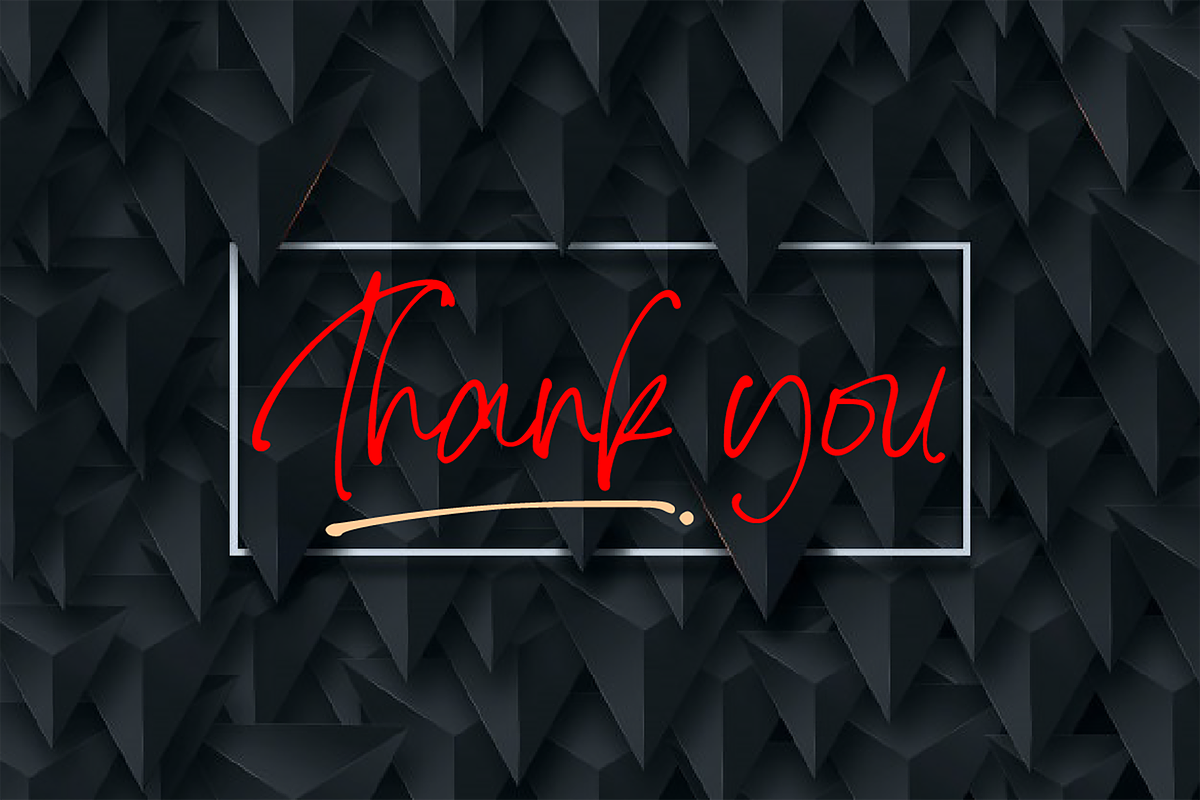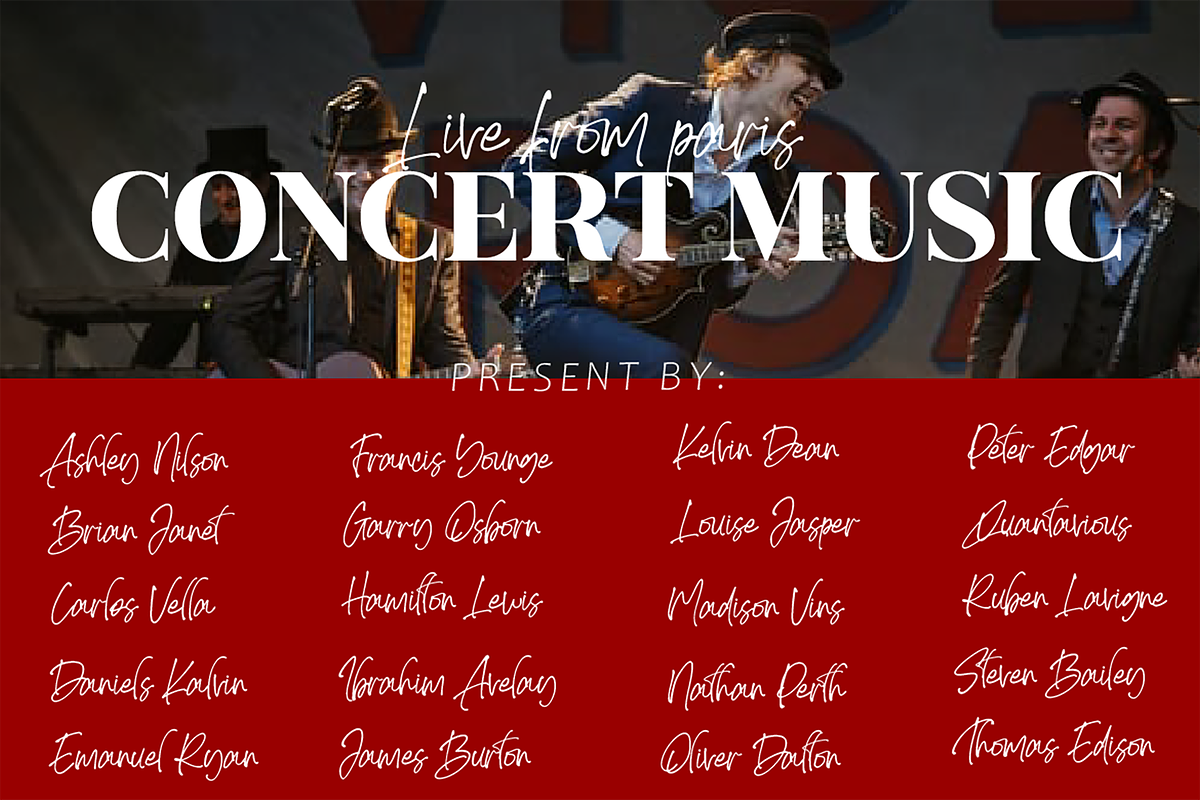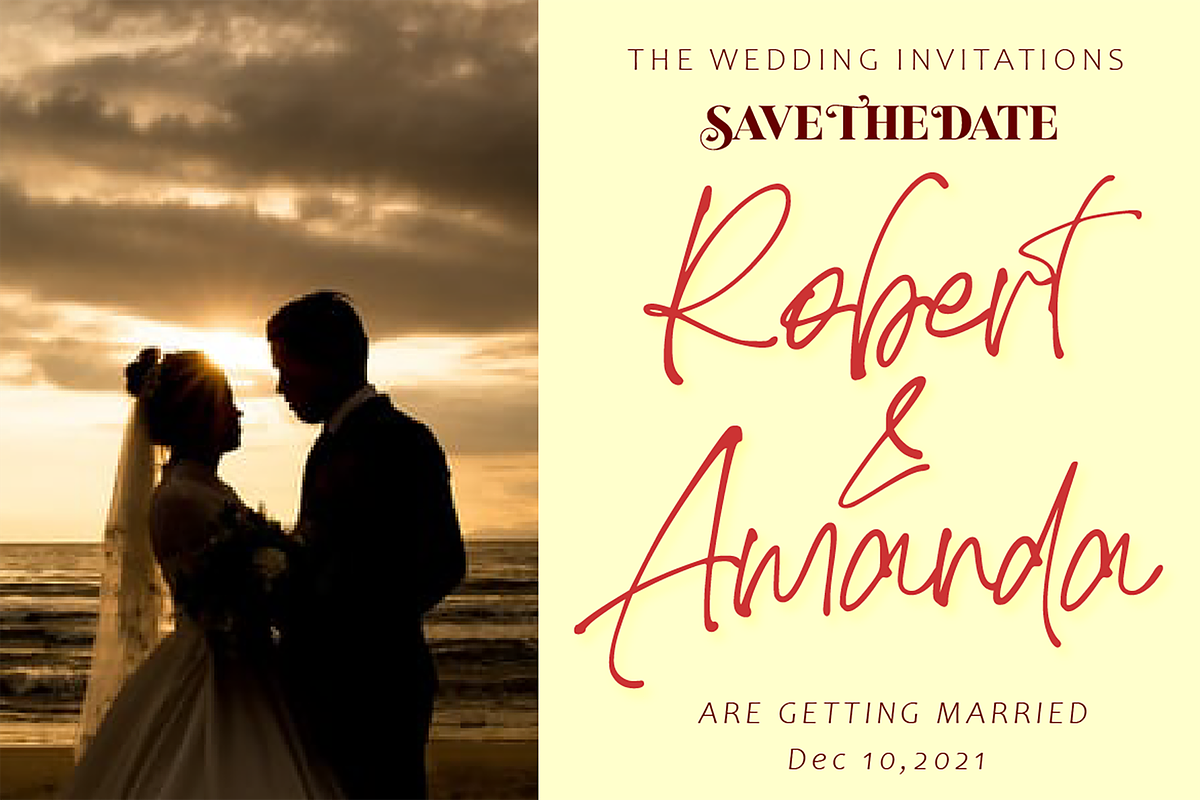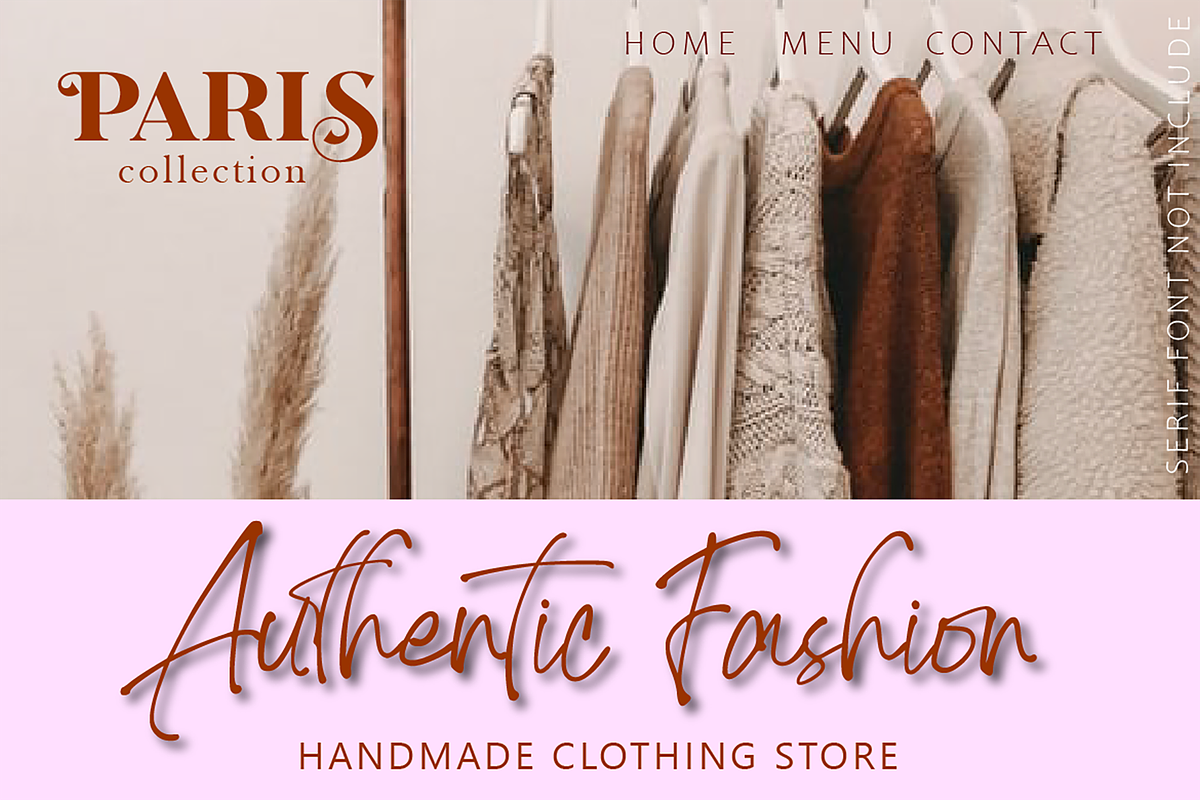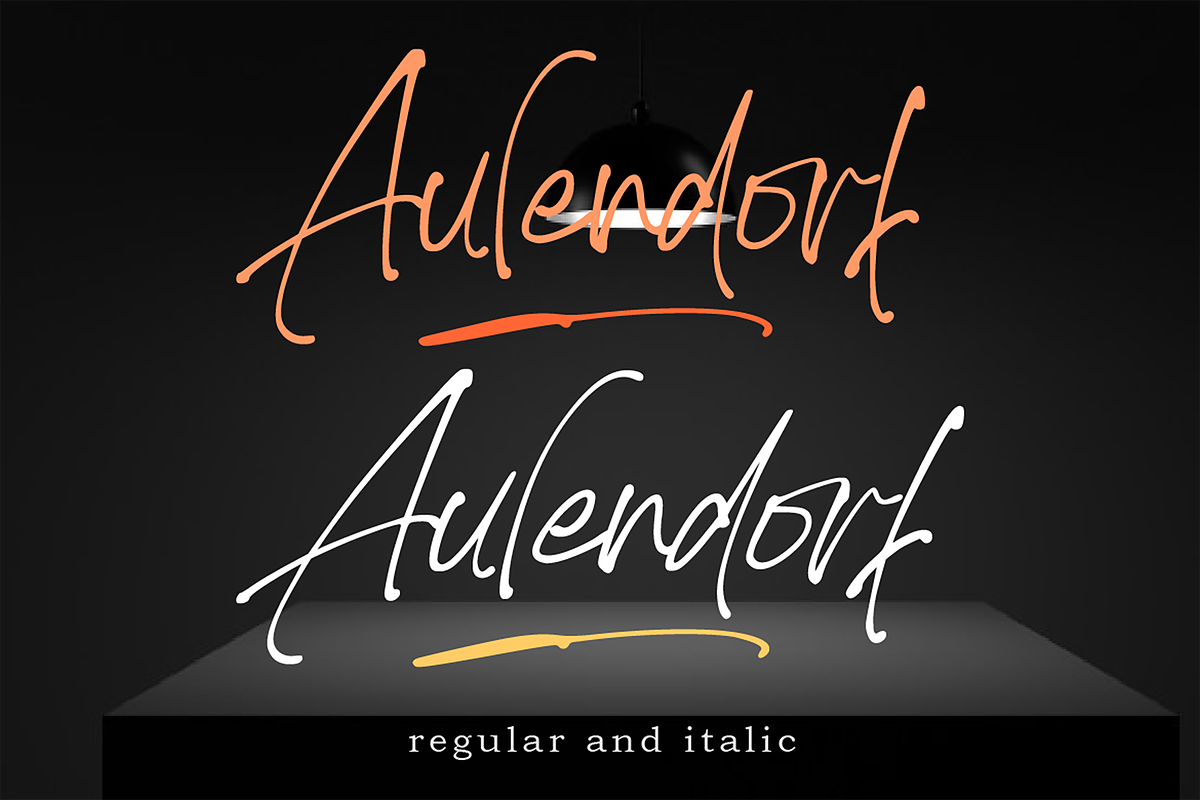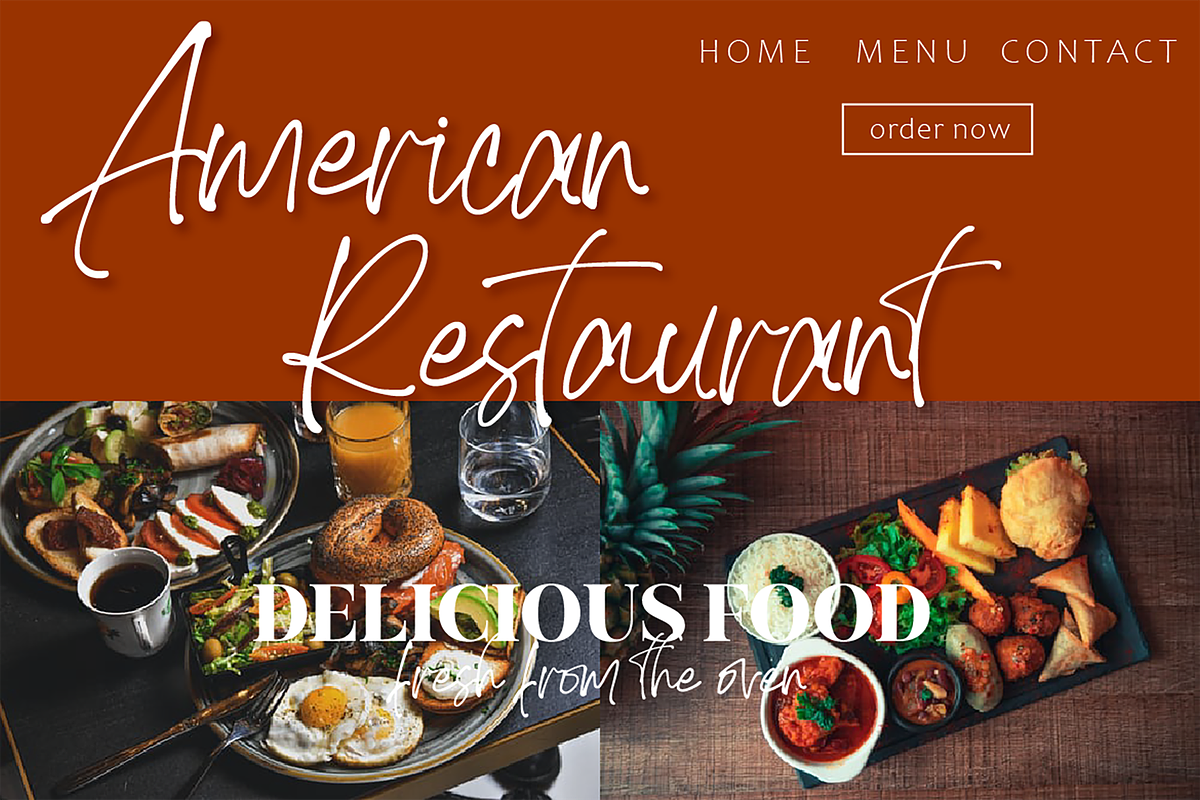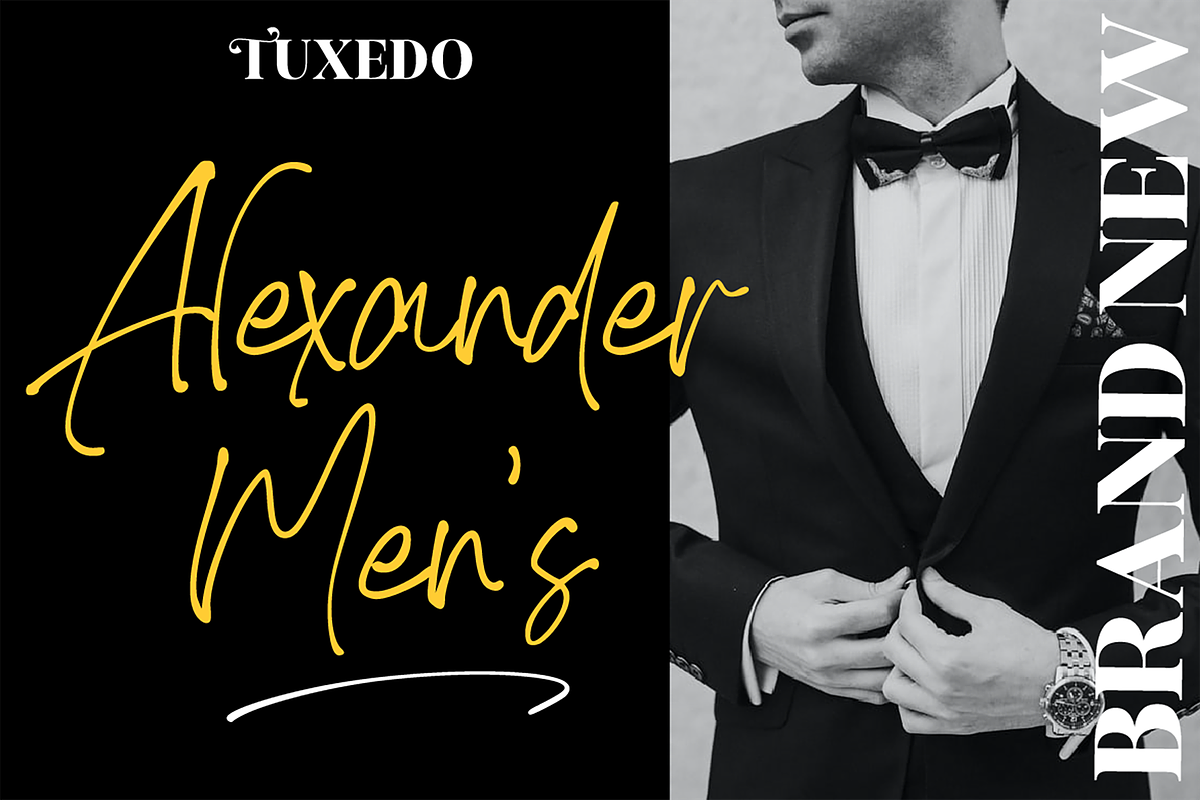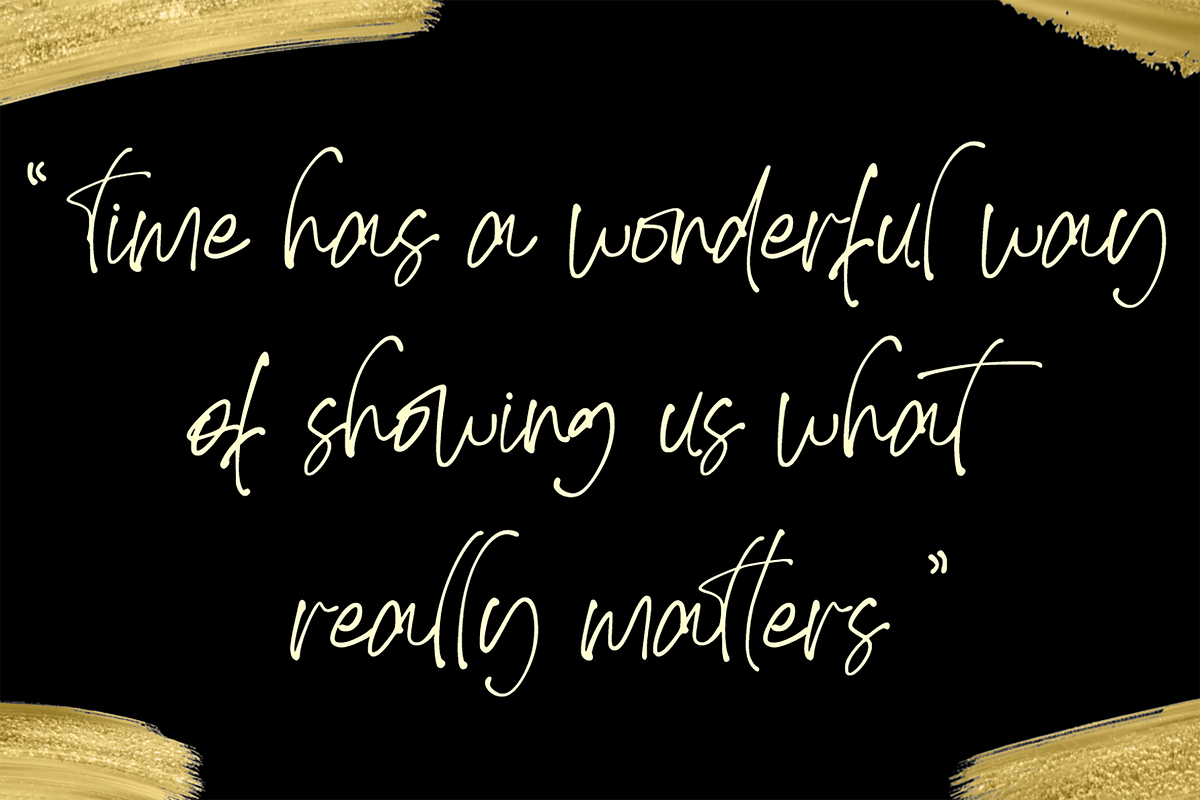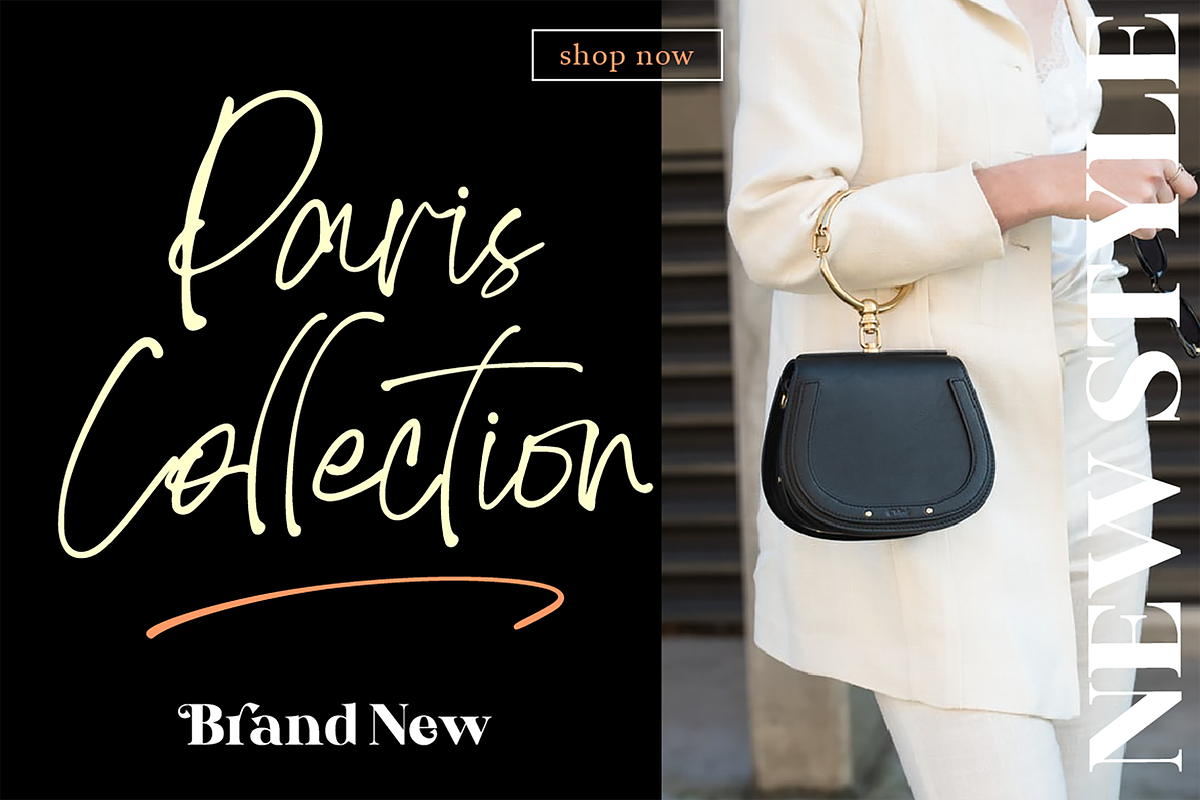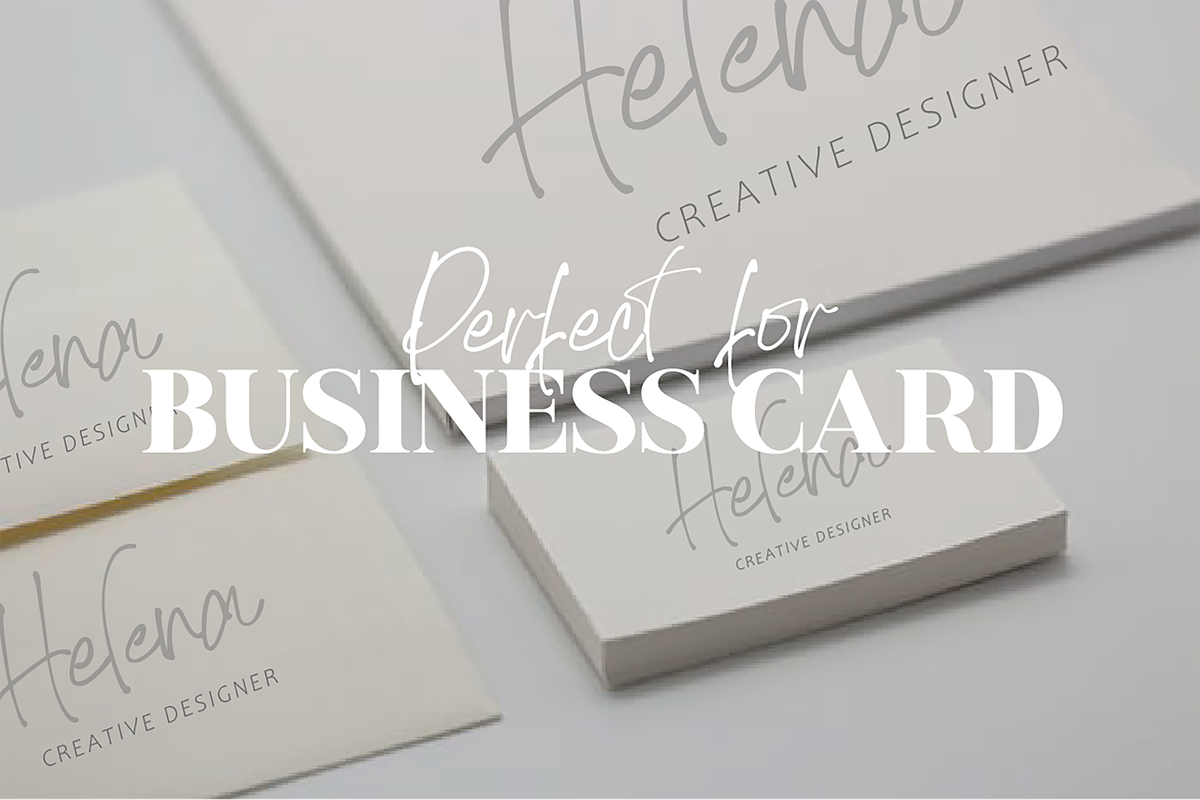
Aulendorf
Aulendorf font is modern and natural handwritten with a quick stroke pen effect. This font was created to look as close to a natural handwritten script, as possible by including lowercase alternates, ligature and underlines. Perfect for any awesome projects that need hand writing taste.
With built in Opentype features, this script comes to life as if you were writing it yourself.